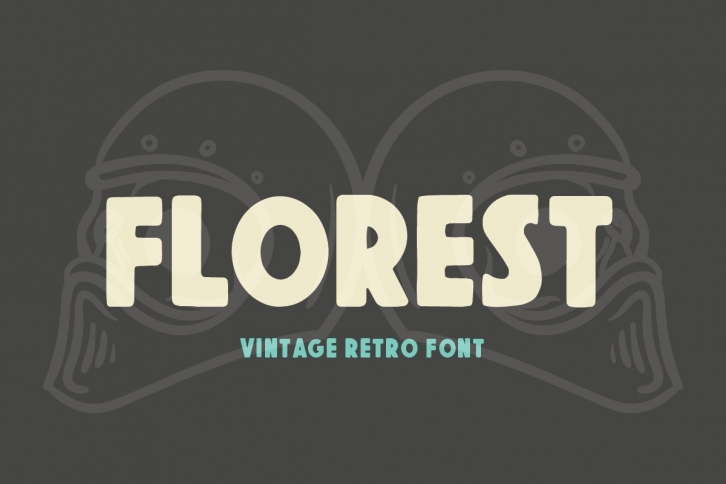
florest is a great font that was designed by Hallotudio. Imagine the amount of combinations you can create using this font! The archive is 17.1 MB and it was released on August 22, 2020. florest looks beautiful on wedding invitations, greeting cards, logos, posters, labels, t-shirt designs, logos, business cards and is perfect for use in ink or watercolor works, fashion, magazines, packaging and food menus, children's books and more!